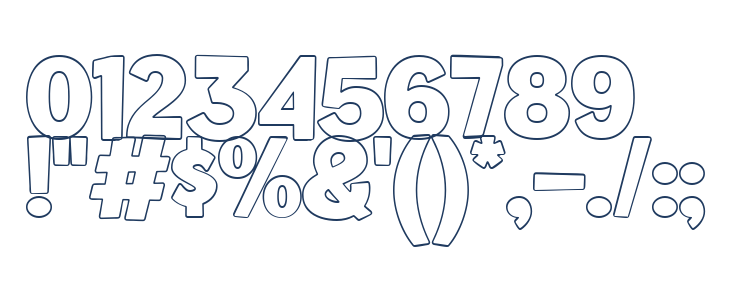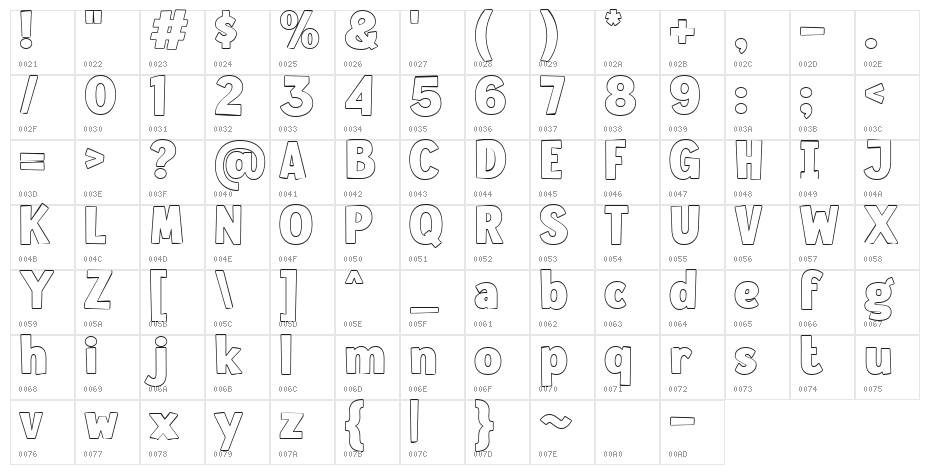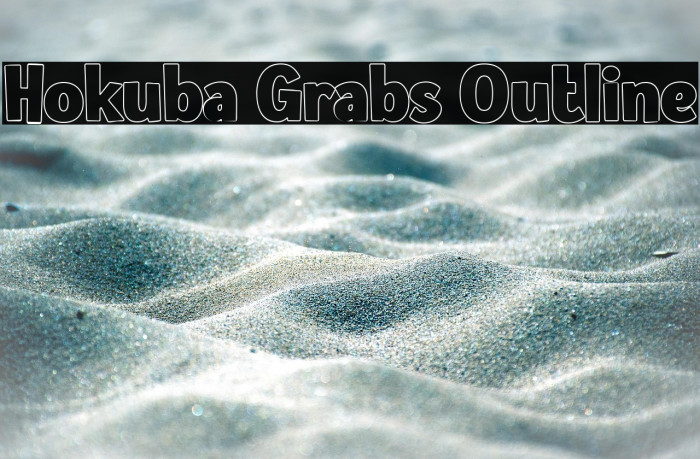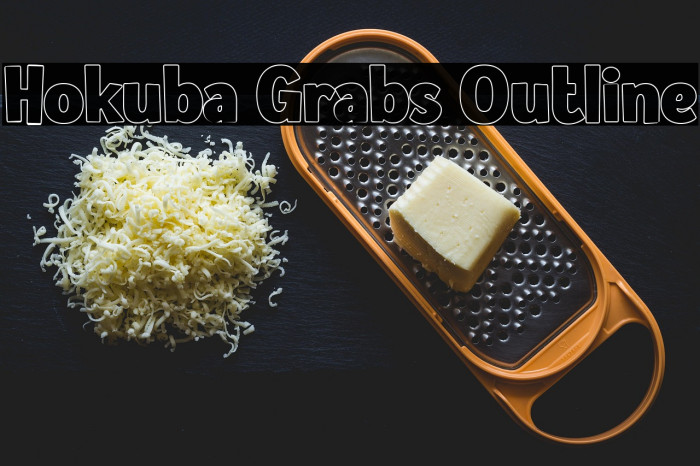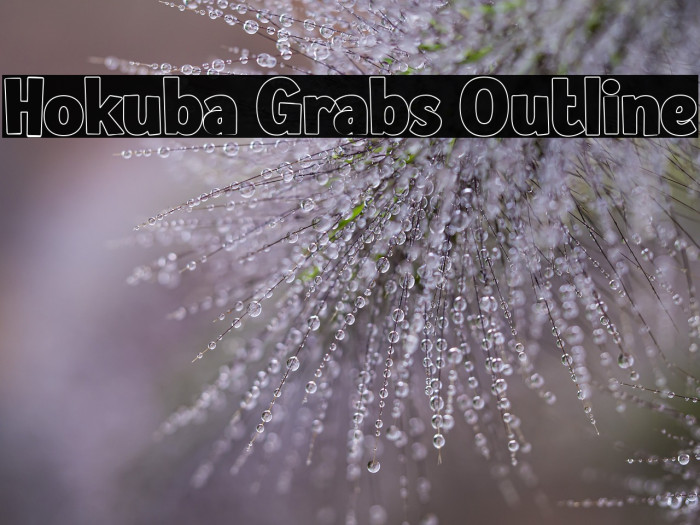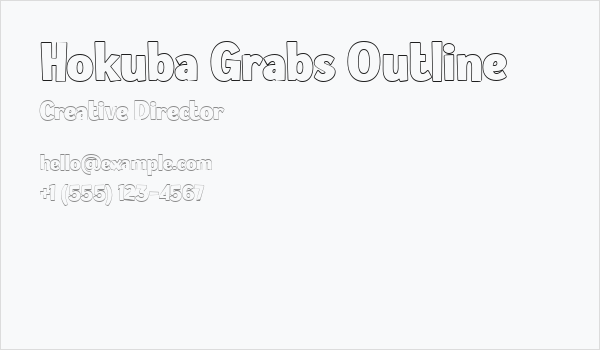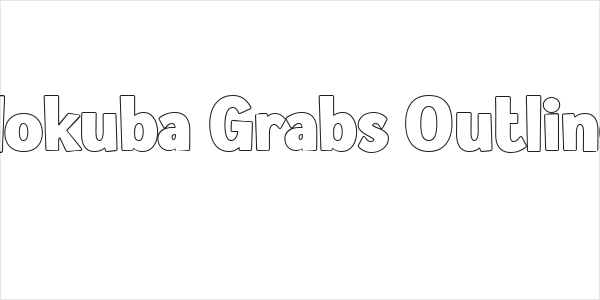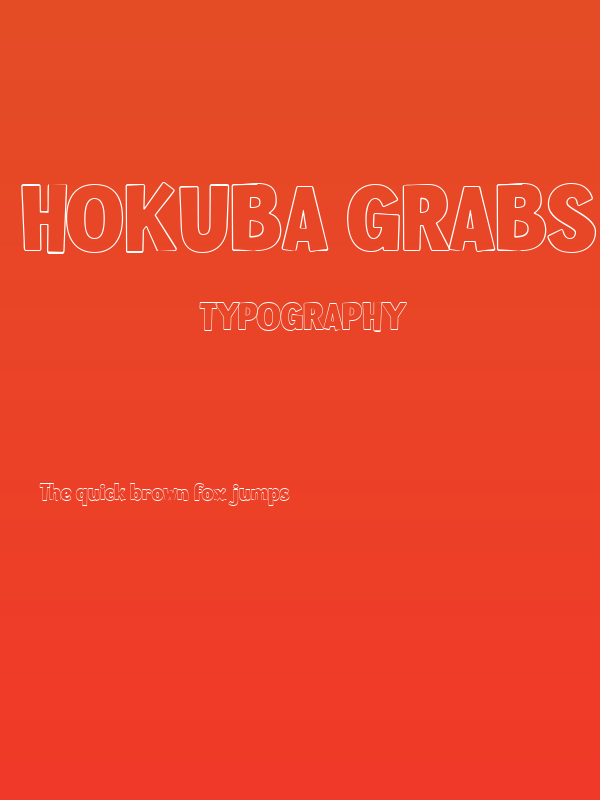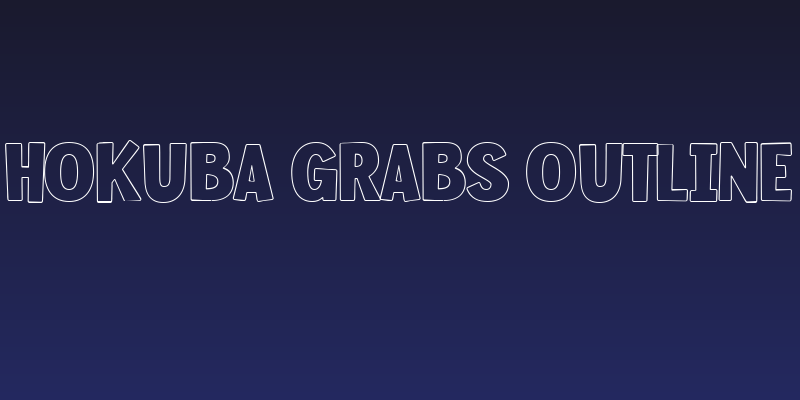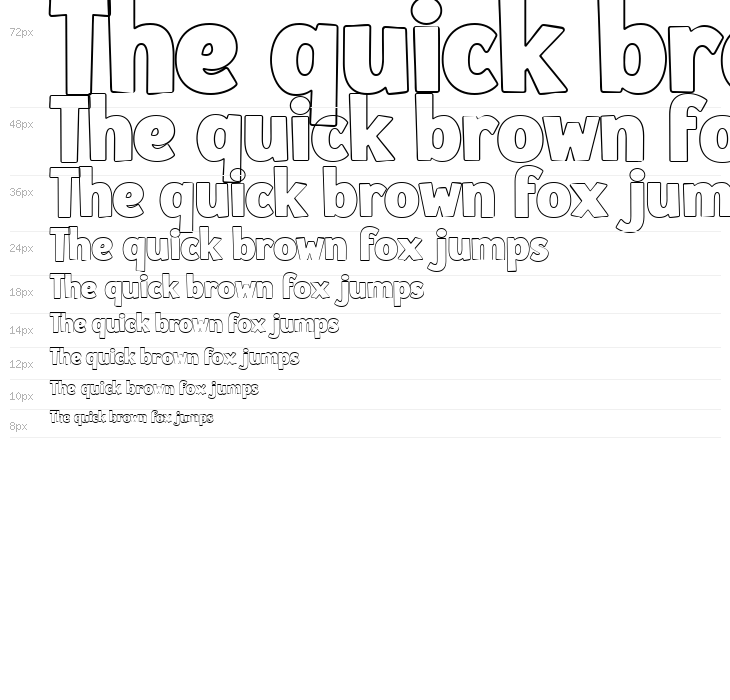
Hokuba Grabs Outline Font
Hokuba Grabs Outline Description
This font features bold, playful outlines that give it a lively and energetic appearance. The characters are uniformly thick, with a consistent stroke width that maintains a sense of balance and harmony. The uppercase and lowercase letters are well-proportioned, and the numbers are clear and legible. Special characters are included, adding versatility to the font. Its outline style makes it stand out, suitable for eye-catching designs. The font's overall look is modern and fun, making it ideal for projects that require a touch of creativity and boldness.
| Proposed Projects | Ideal for posters, children's books, comic strips, playful branding, and creative headlines. |